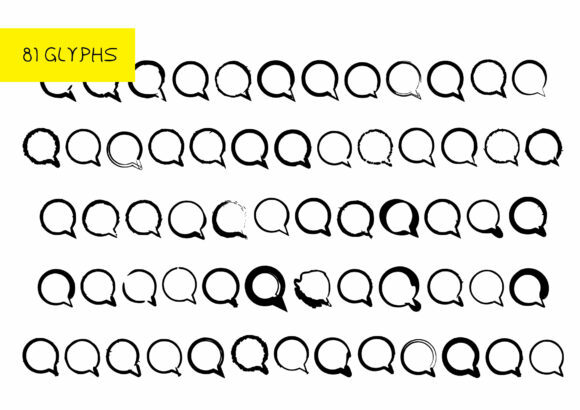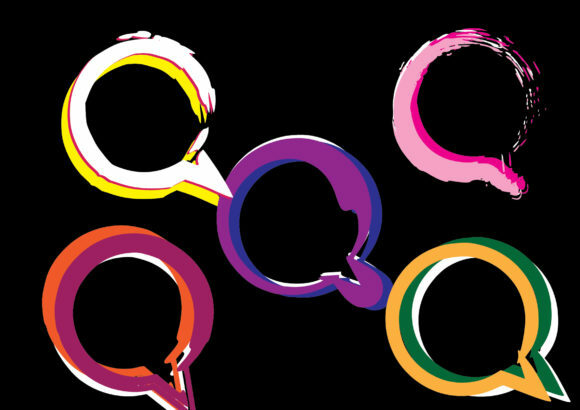
BM Graphics – Speech Bubbles Font
About BM Graphics – Speech Bubbles Font
The Squares dingbats font sounds like a versatile and personalized resource for various design projects. Here are some ideas on how you can use it:
1. Typography Designs: The Squares glyphs can be used as decorative elements in typography designs. You can incorporate them as drop caps, bullet points, or even as unique characters within the text.
2. Logo and Branding: If you’re creating a logo or working on branding materials, the Squares font can add a personalized touch. Experiment with combining the glyphs to create unique shapes and patterns that represent your brand’s identity.
3. Pattern Designs: The square glyphs can be arranged in different configurations to create interesting patterns. Use them as building blocks to design backgrounds, borders, or decorative elements for stationery, packaging, or digital designs.
4. Social Media Graphics: Enhance your social media posts with the Squares dingbats font. Use the glyphs to create eye-catching graphics, overlays, or icons that complement your content and capture attention.
5. Craft and DIY Projects: Get creative with the Squares font in your craft and DIY projects. Use the glyphs as stencils for painting, etching, or embossing on various surfaces like wood, fabric, or ceramics.
6. Digital Art and Collage: Incorporate the Squares glyphs into your digital art or collage projects. Combine them with other elements, textures, and colors to create visually striking compositions.
Remember to explore and experiment with the glyphs to discover unique combinations and styles that suit your design vision. The Squares dingbats font provides you with a personalized and customizable approach to your design projects. Enjoy the creative process and have fun designing with the Squares font!